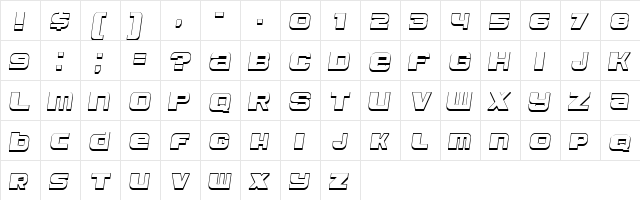
Leprosy 3D Italic
Design Context for Leprosy 3D Typeface
Leprosy 3D is a composed and adaptable typeface that performs quietly and consistently across a wide range of design contexts. Its italic angle brings a sense of urgency and motion to the letterforms.
Pro Tip: Try Leprosy 3D for annotation and caption copy alongside an upright companion — the contrast in angle creates a dynamic but ordered typographic system.